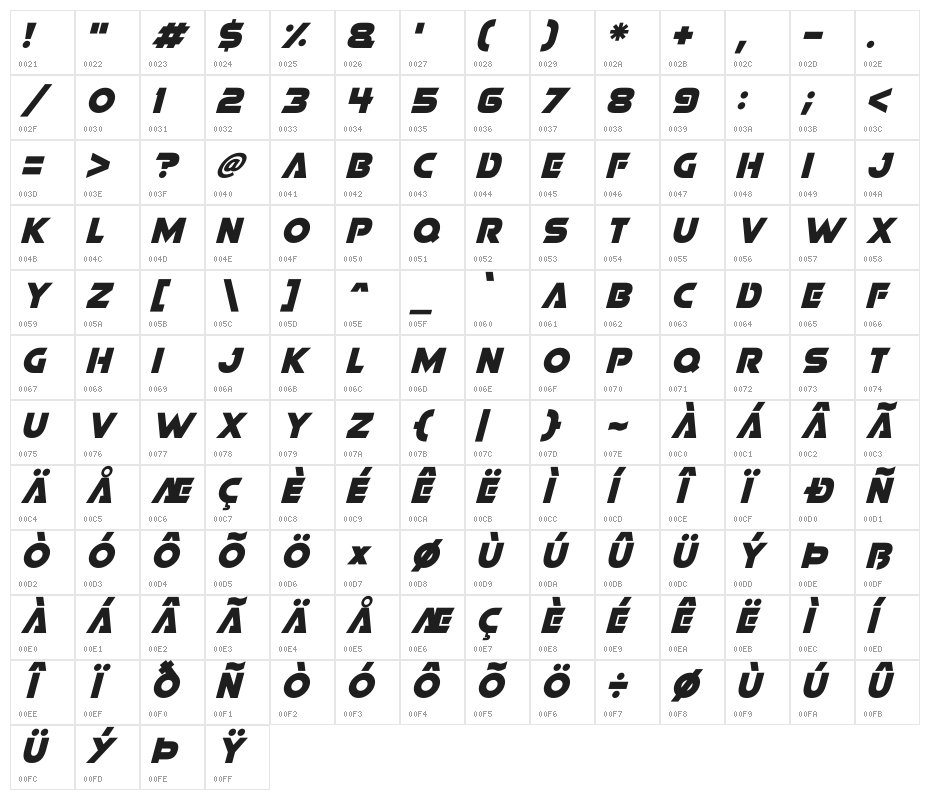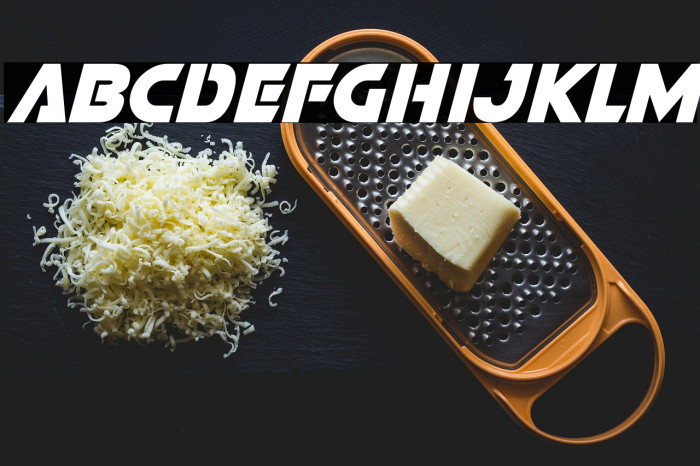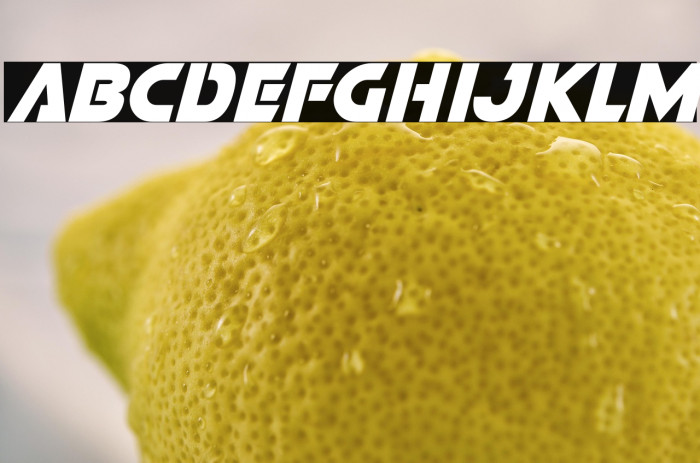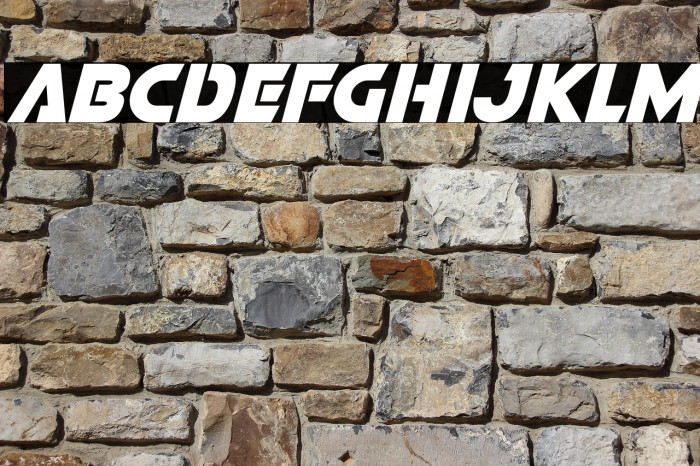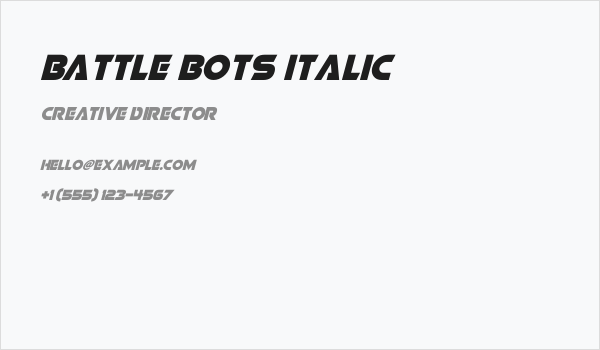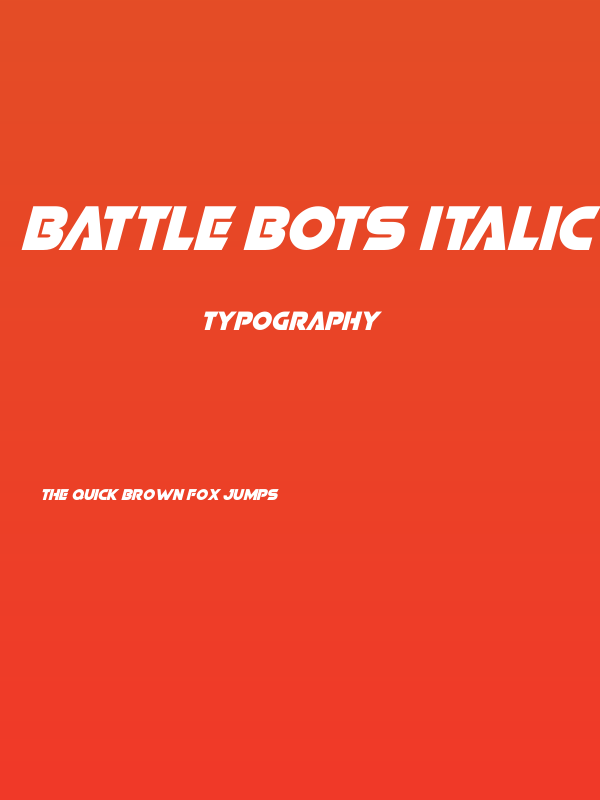
Battle Bots Italic Font
Battle Bots Italic Description
This font features a bold and dynamic design with a futuristic flair, characterized by its italicized and angular letterforms. The uppercase and lowercase letters maintain a consistent slant, giving a sense of motion and speed. The numbers and special characters follow the same stylistic approach, ensuring uniformity across all glyphs. The font's thick strokes and sharp edges contribute to its strong visual impact, making it ideal for attention-grabbing designs. The character spacing is tight, enhancing the compact and cohesive appearance of the text. Overall, this font exudes a modern and edgy vibe, suitable for projects that require a bold statement.
| Proposed Projects | Ideal for sci-fi themed designs, video game titles, tech branding, and sports team logos. |